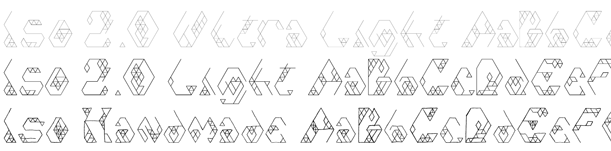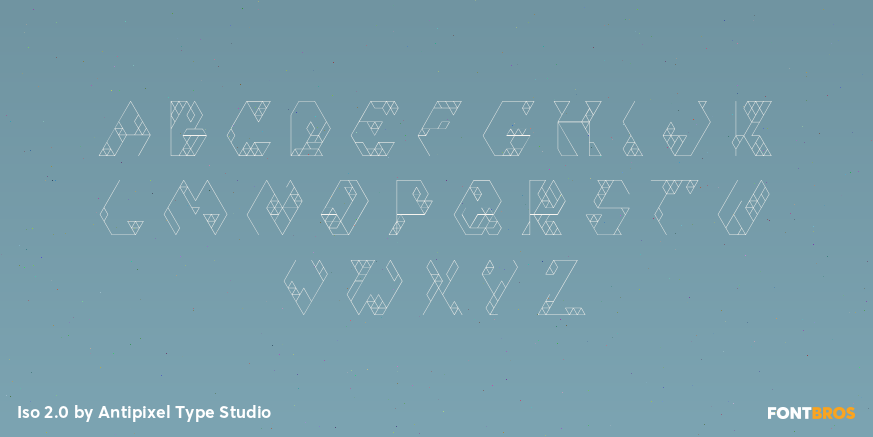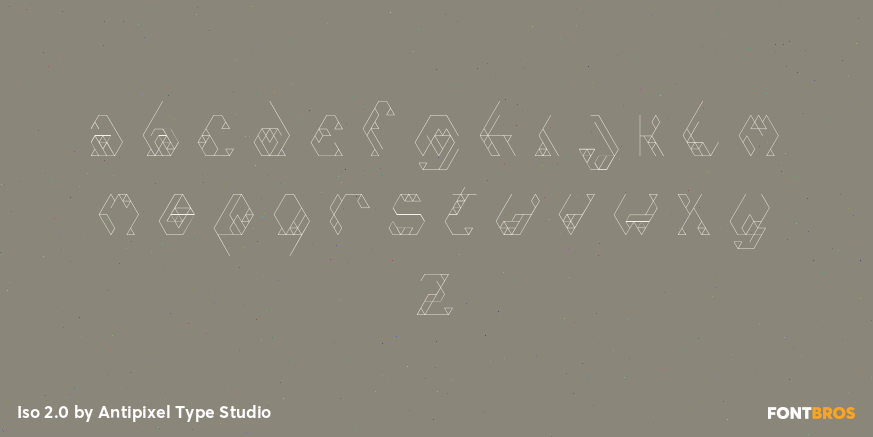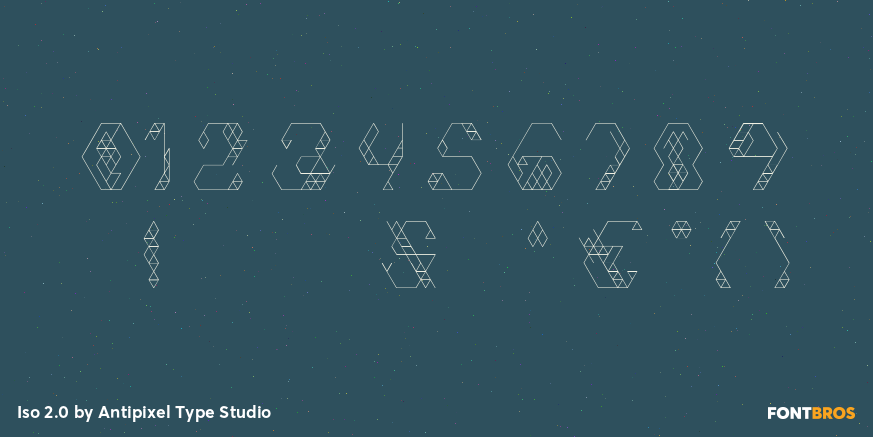
Iso 2.0
Font Family by Antipixel Type Studio
Iso 2.0 is a futuristic sans serif family with a stripped-down, modular look. Its angular construction, thin linear strokes, and geometric outline-driven forms create a clean digital aesthetic that feels minimal, experimental, and distinctly tech-inspired.
This family includes 2 styles—Ultra Light and Light—giving you a pair of airy weights for display work that benefits from precision and space. The overall effect is sleek and contemporary, with an abstract edge that stands out without feeling cluttered.
Designed by Antipixel Type Studio, this is a strong choice for branding, posters, interfaces, packaging, and other modern display settings where a light, futuristic voice fits the concept. If you’re after a type family that feels sharp, minimal, and digitally minded, this one delivers a refined visual presence.